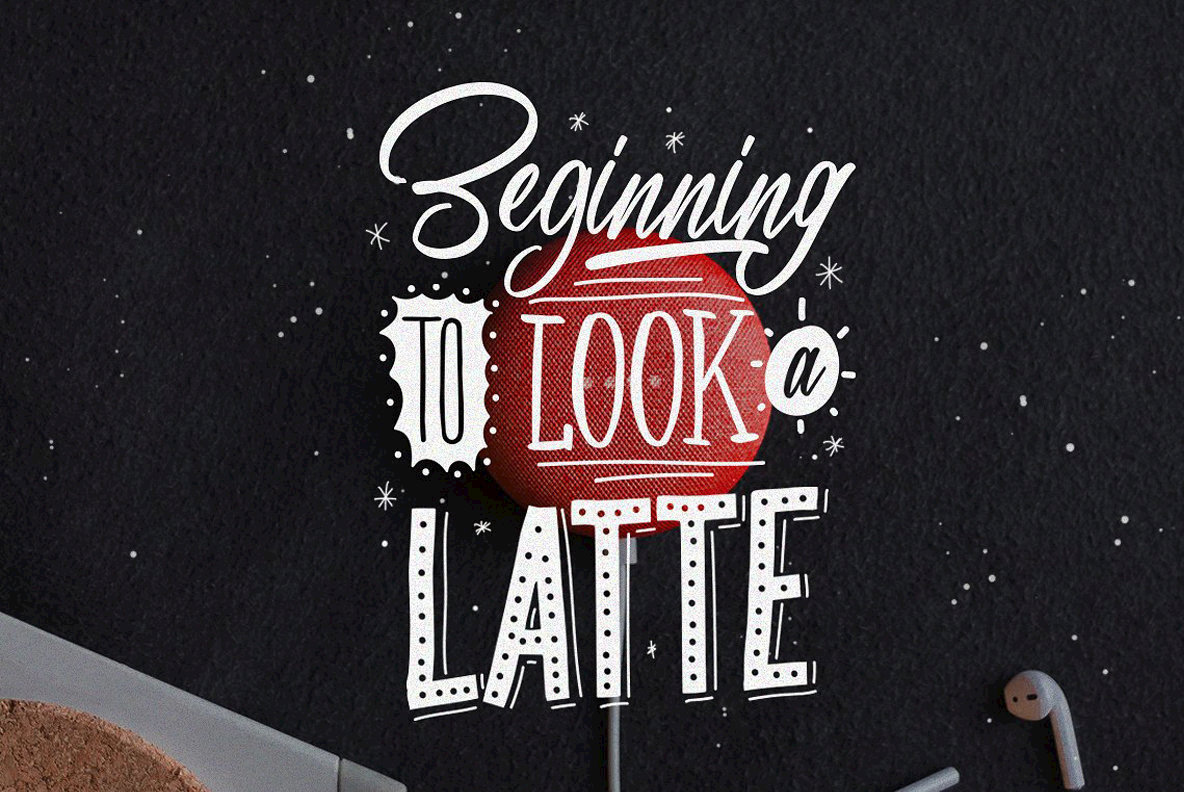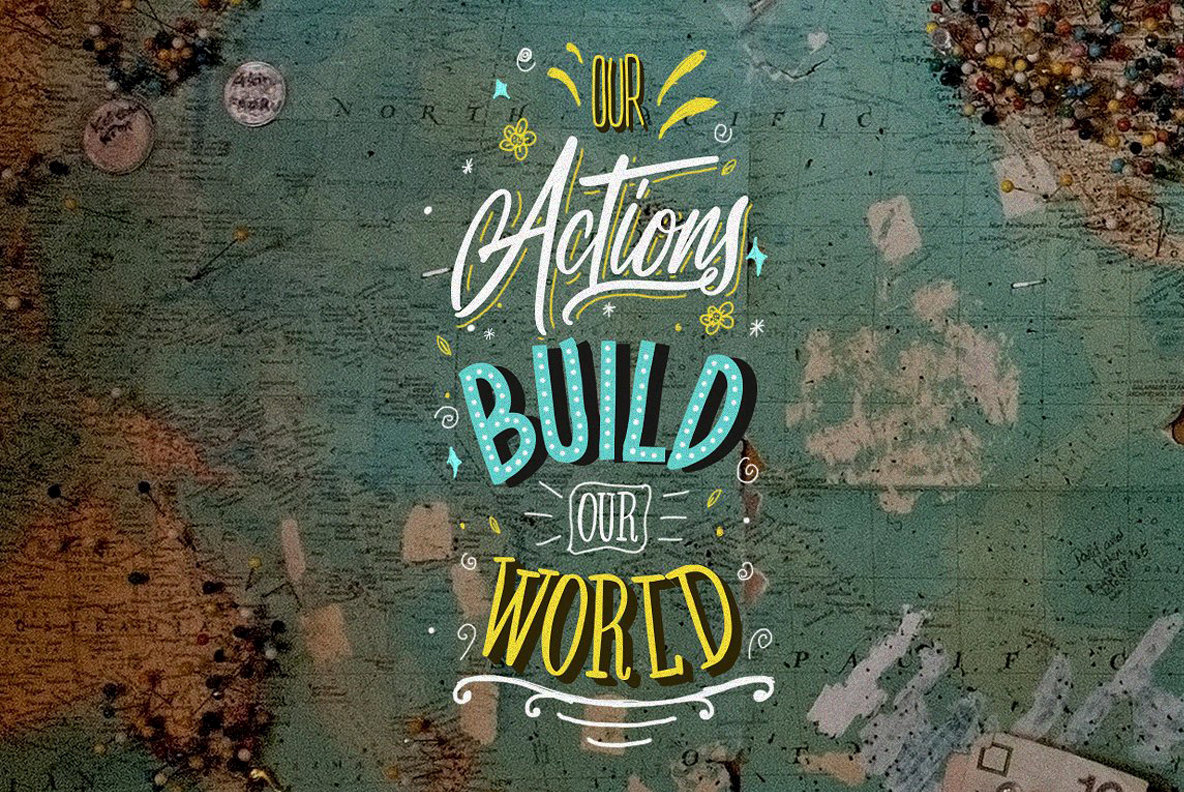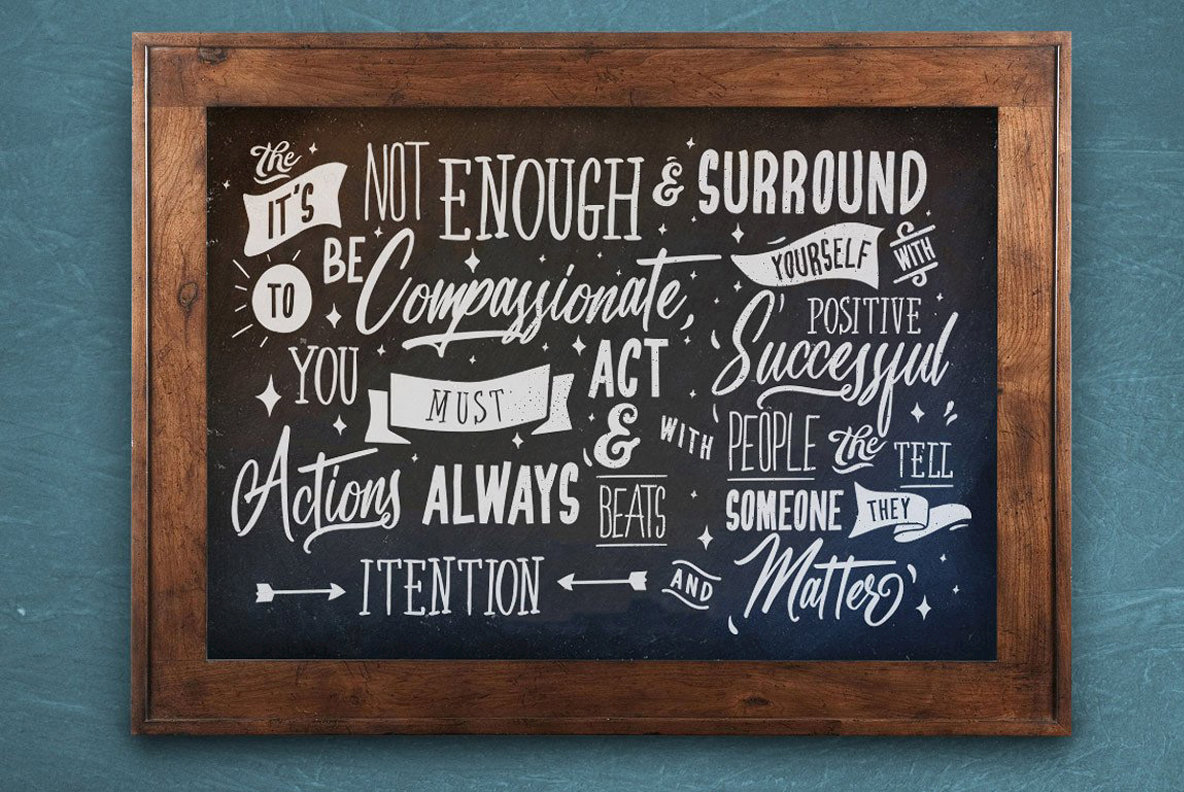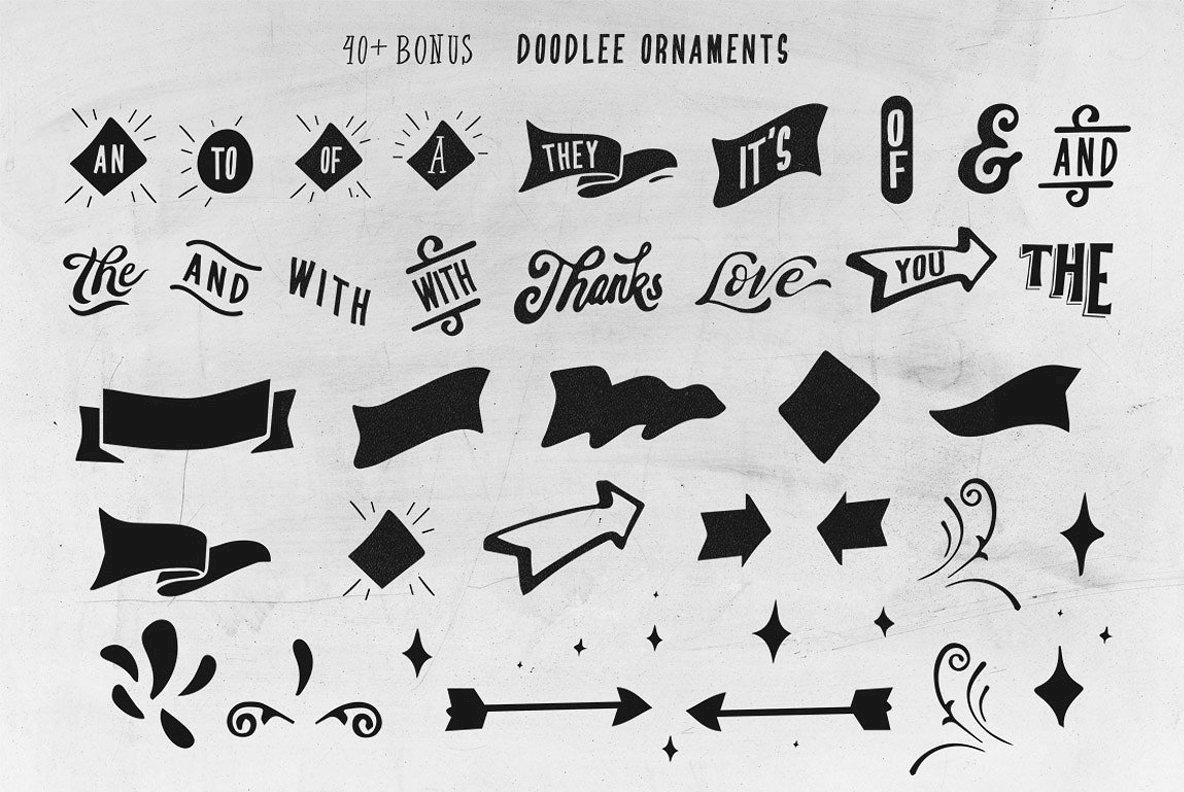
Beverley Font
Beverley One Stroke
Beverley San Serif
Beverley Script
Beverly Serif
The Beverley type family brings a whimsical touch to any creative project, blending the essence of handlettering with modern versatility. This enchanting collection boasts three distinct styles, allowing for the creation of striking "handmade" graphics. The Beverley type is designed to mirror authentic handlettering, offering a colorful and engaging solution for various applications including magazines, chalkboards, quotes, logos, and more. Features:Beverley Type Family: A Charming Handlettering Experience
Perfect for Various Projects